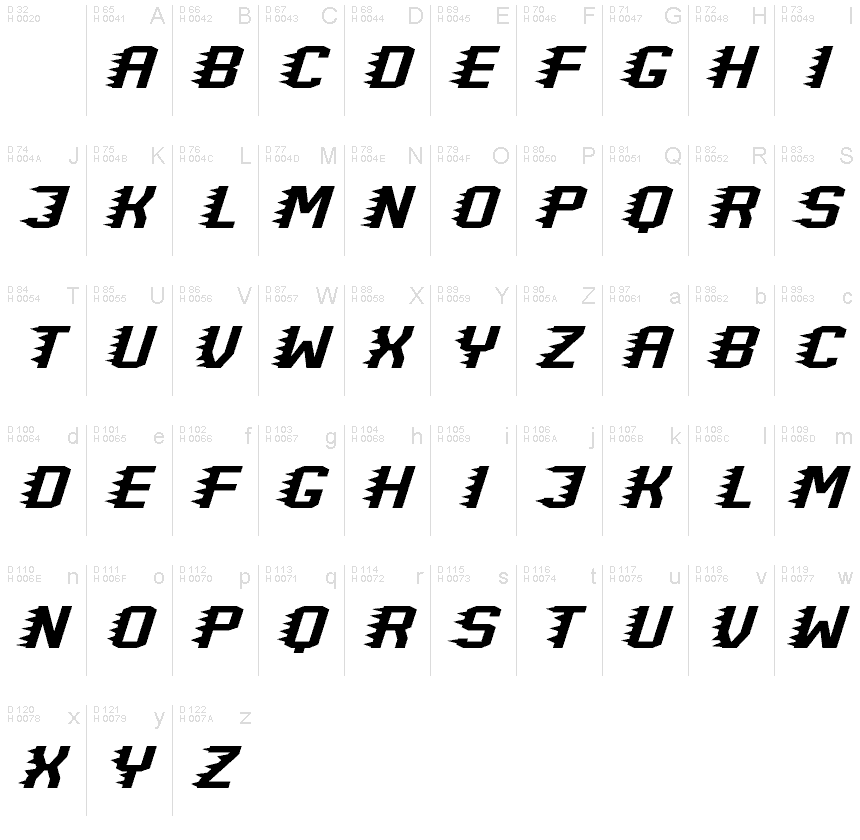
Slow Connection Regular
Slow Connection font, by Vladimir Nikolic, is a display typeface with unusual angular forms and jagged lines. The modern characters express edginess with high-impact through their accent circular bits and pieces. Slow Connection is a futuristic techno-themed font that attracts attention effortlessly.
Adding personality to artistic goods such as T-shirt apparel, Sketchbook cover design, posters and banners of music concerts are examples of use cases. Create app icons for mobile and tablet devices or go big for neon business signs.